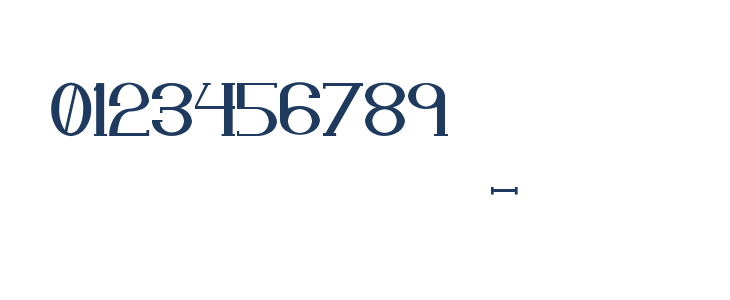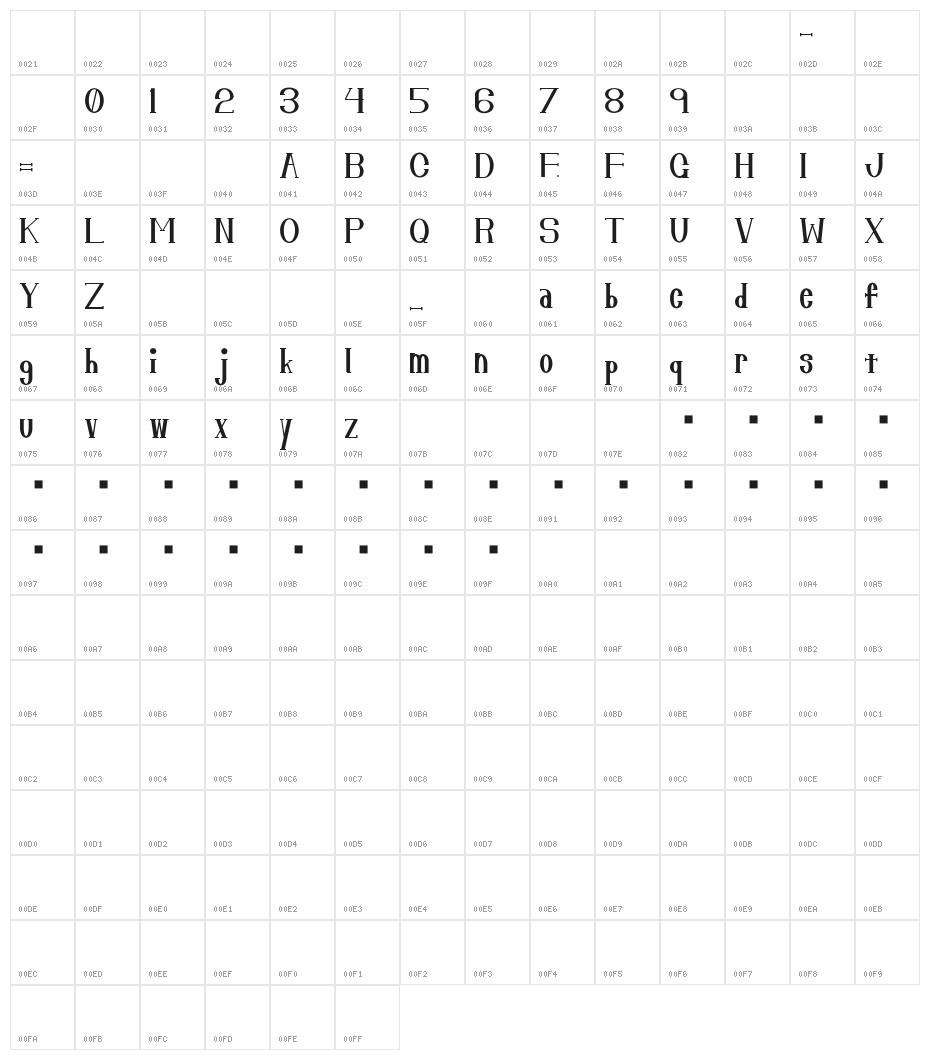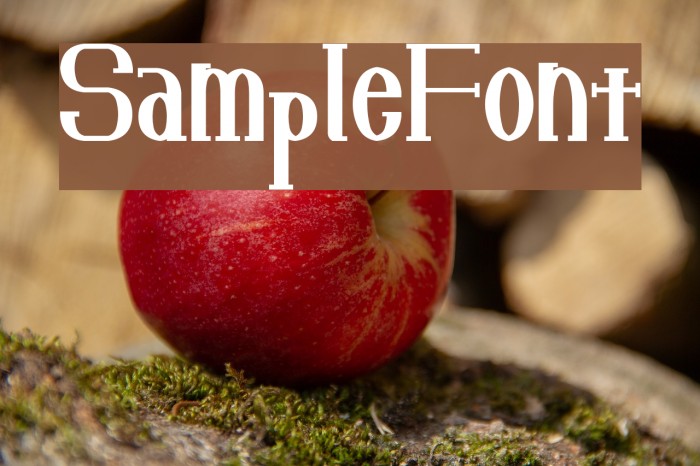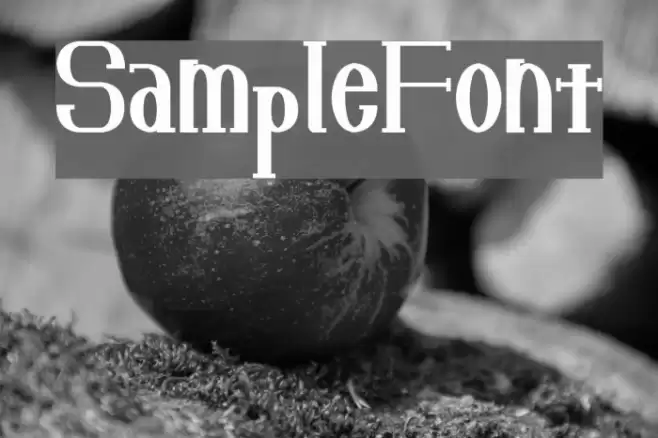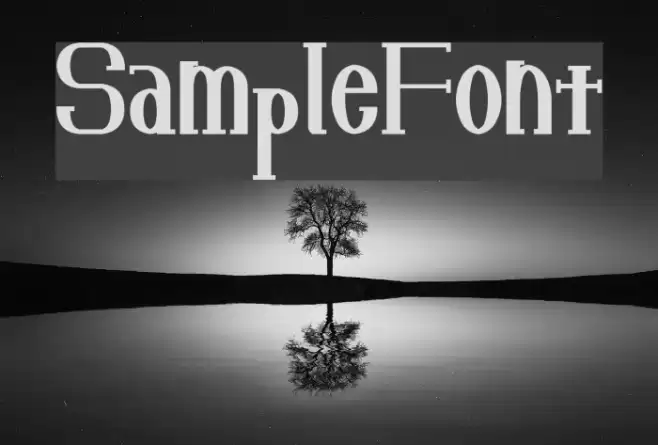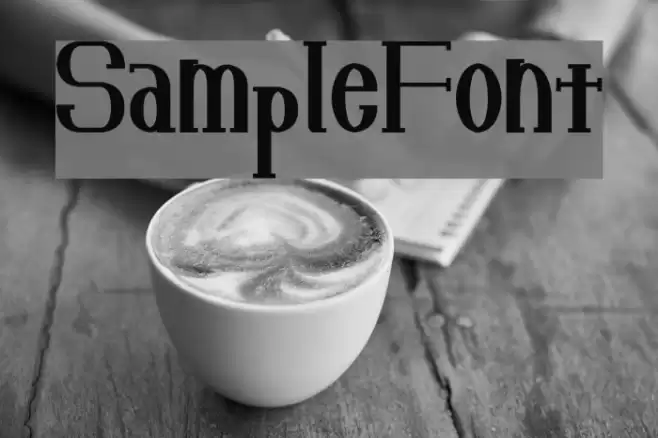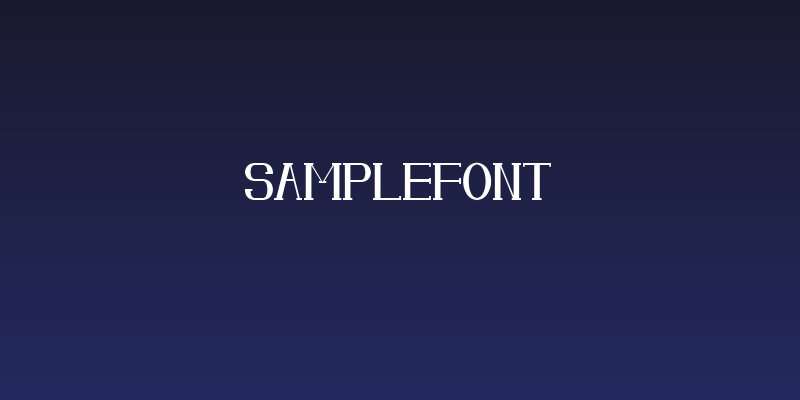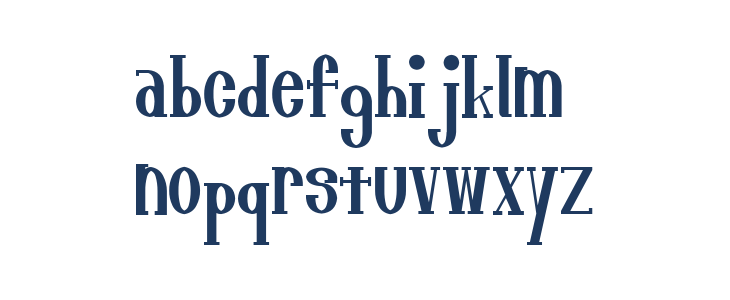
SampleFont Font
SampleFont Description
This font features a unique blend of modern and vintage styles, characterized by its high contrast in stroke thickness and distinctive serifs. The uppercase letters exhibit a bold and commanding presence with sharp, angular serifs, while the lowercase letters maintain a playful yet sophisticated look. The numerals are designed with a consistent style, ensuring readability and aesthetic appeal. Special characters are crafted with attention to detail, complementing the overall design. The font's structure is both decorative and functional, making it versatile for various design projects.
| Overall Style | Modern Vintage |
| Proposed Projects | Ideal for branding, editorial design, posters, and packaging that require a bold and stylish typeface. |